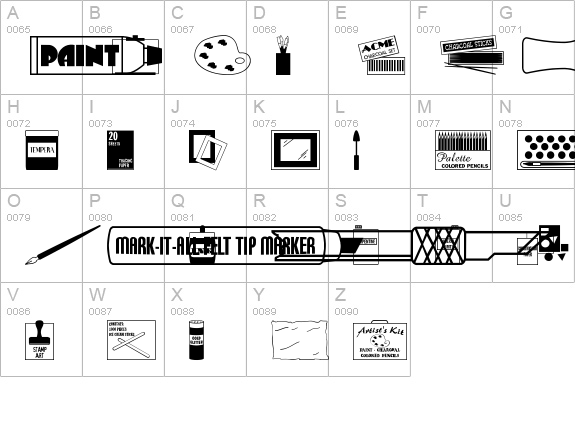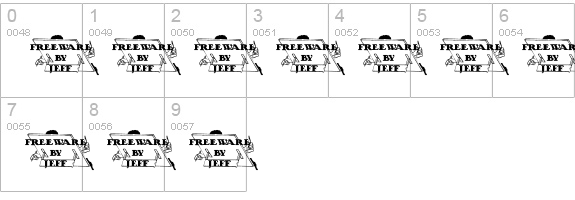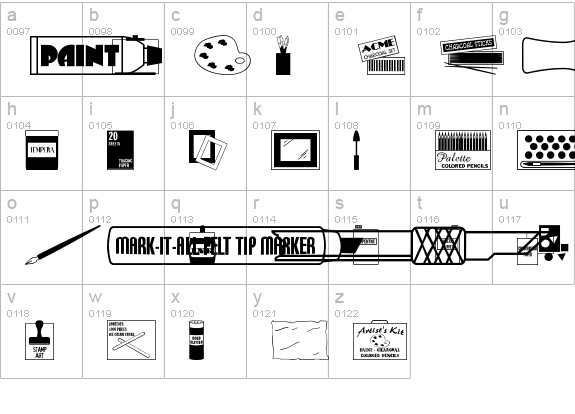
Art Supplies JL font is a versatile and creative typeface that is perfect for adding a unique touch to your artistic projects. With its hand-drawn style and quirky charm, this font captures the essence of creativity and self-expression. Whether you're designing posters, invitations, or branding materials, Art Supplies JL font will surely make your work stand out. The best part? Art Supplies JL font is completely free to download at FontsMarket.com. This means you can easily access this amazing font and use it in your designs without any cost. So go ahead, unleash your creativity and elevate your projects with Art Supplies JL font today!